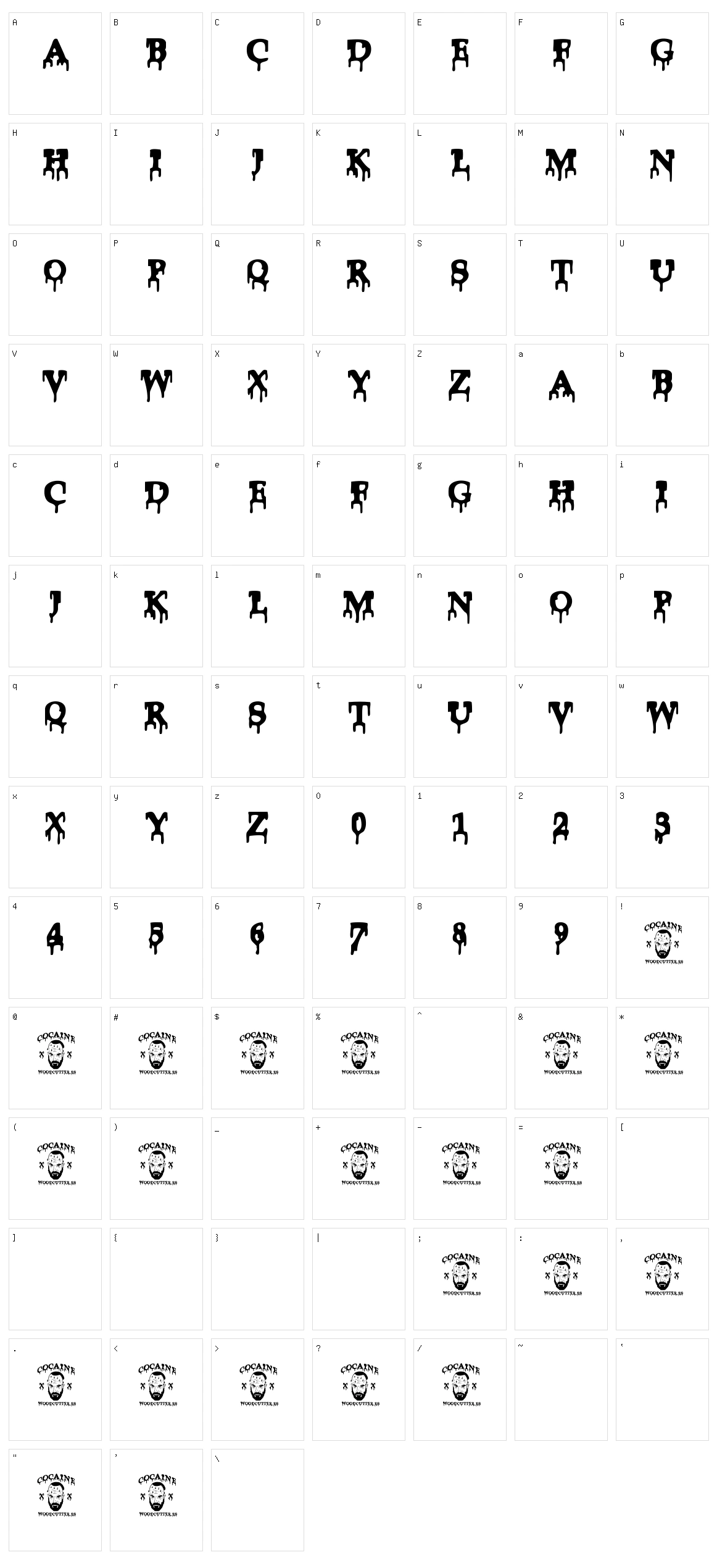
The free font Cocaine is carefully designed by Woodcutter, showcasing a thoughtful balance of creativity and usability and falls under the Horror font style. When you download the ZIP file, it contains only 18.06 KB of font files, making it lightweight and quick to download. Please review the license details below to understand permitted usage and distribution rights. If license information is not available, we recommend using this font for personal projects only or contacting the author directly for commercial usage permissions.